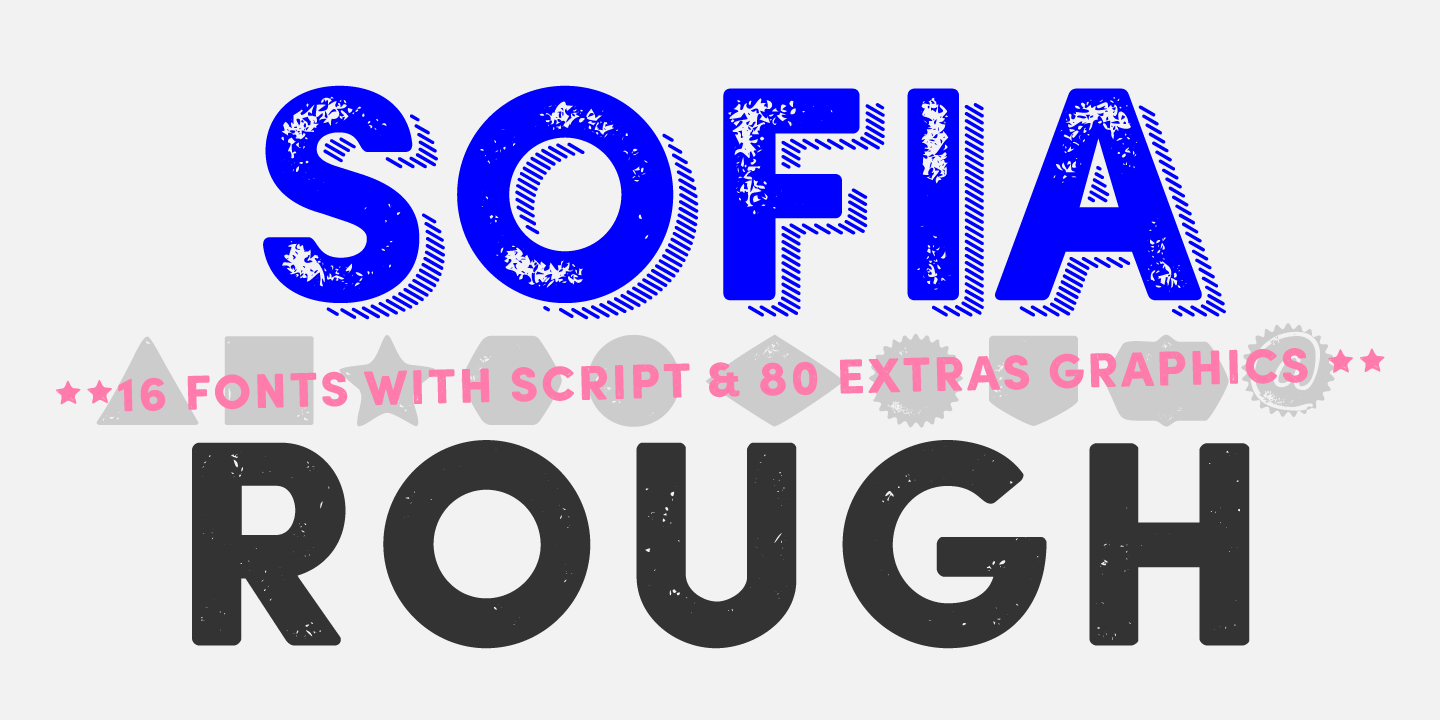
Sofia Rough Font is ideal for vintage coffee shop branding, artisan craft packaging, handmade product labels, rustic wedding invitations, distressed poster designs, indie band merchandise, weathered signage projects, and authentic vintage-style communications.
This font is exciting because it combines elegant femininity with rugged texture, creating letterforms that feel both sophisticated and authentically weathered by time and experience. The Sofia Rough Font embodies the perfect balance of grace and grit, transforming ordinary text into compelling expressions that speak to audiences who appreciate both refined aesthetics and genuine character earned through life's beautiful imperfections.
The Sofia Rough Font family includes textured variations such as Regular, Bold, Light, Distressed, Italic, Vintage, Condensed, and Extended versions, providing artisan designers with comprehensive tools to create authentic weathered typography that celebrates both elegance and authentic character across all vintage applications.
Embrace authentic character with Sofia Rough Font Free Download that brings sophisticated texture to every vintage design project. This beautifully weathered typeface combines elegant design with authentic distressing, making it perfect for artisan brands, vintage-inspired businesses, and organizations celebrating handcrafted authenticity and genuine character. The font's textured character design ensures your message feels both refined and authentically weathered while maintaining excellent readability across all applications. Whether you're developing artisan brand identities, creating vintage-style marketing materials, or designing products that celebrate handcrafted authenticity, Sofia Rough Font delivers the sophisticated typography that resonates with audiences who appreciate genuine character and timeless elegance. Its versatile design works beautifully across digital and print media while preserving the authentic texture that makes vintage communications feel genuinely sophisticated and worthy of the respect that comes from embracing both beauty and the honest character that time and experience bring to all things truly valuable.